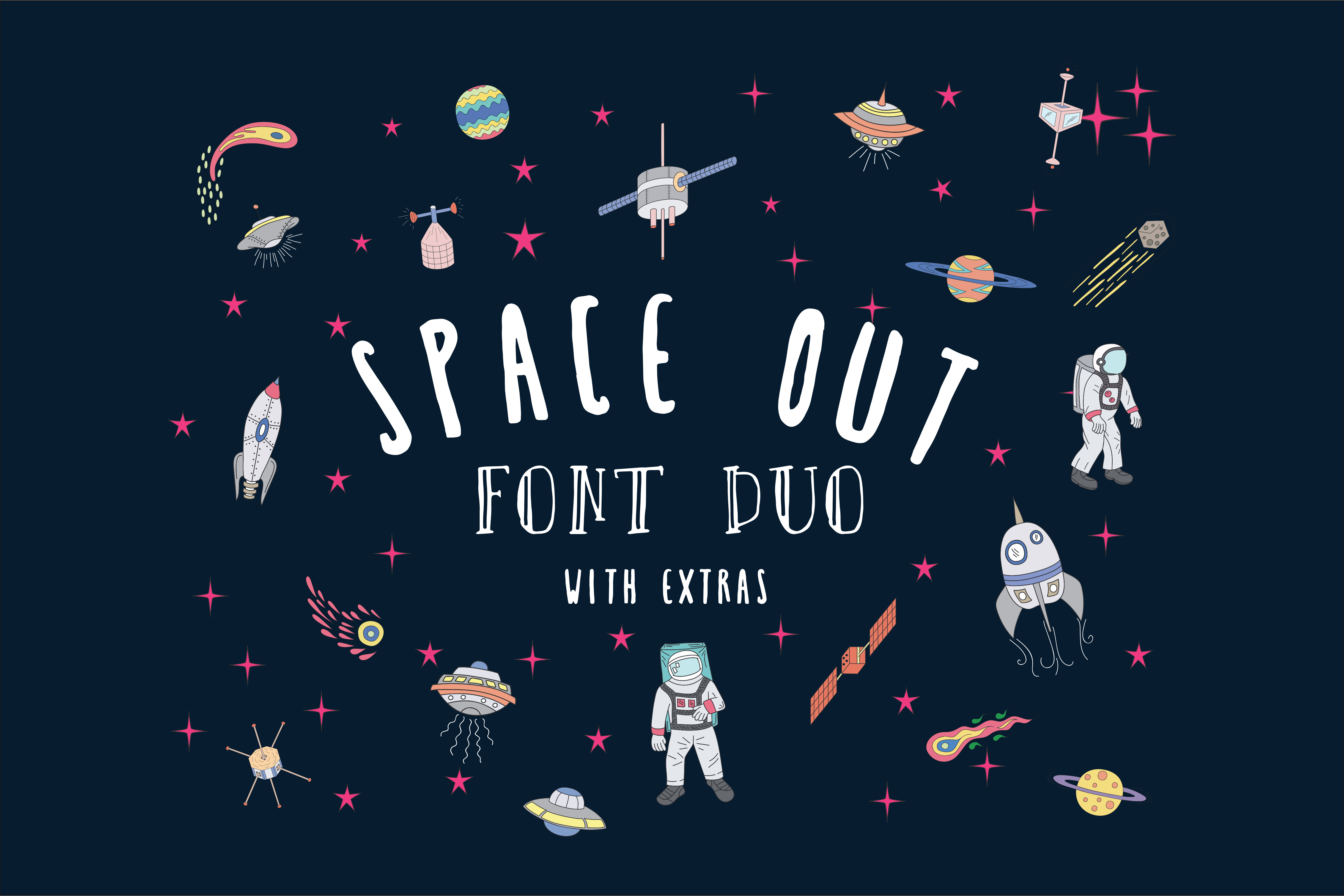
Hand Written Font - Space Out
Space Out is a playful handwritten font duo, this font very simple and easy to use! You can combine two fonts with extras to create something nice, Space Out perfect for create a quotes, poster, crafting, wedding invitation, greeting card, logo, insigna, packaging, headline, t-shirt/aparel and many more.
- Space Out 1
- Space Out 2